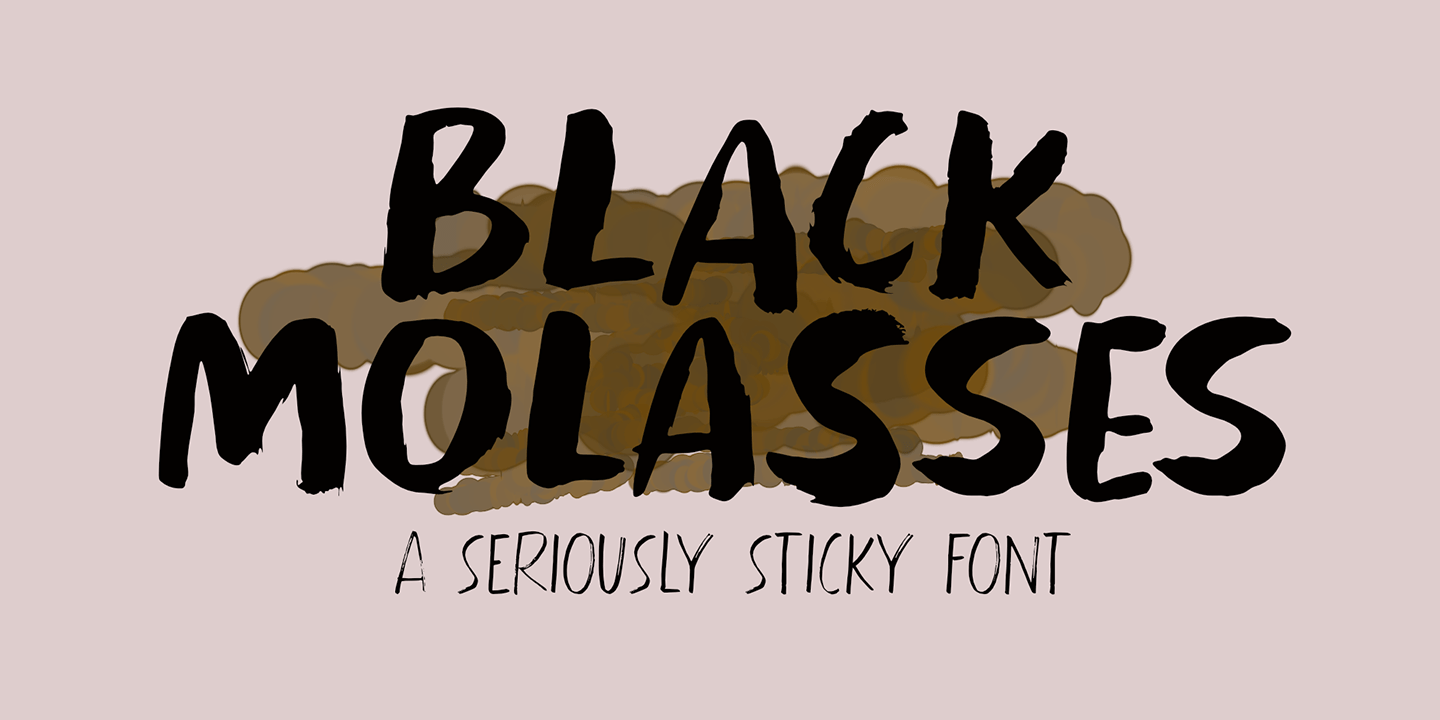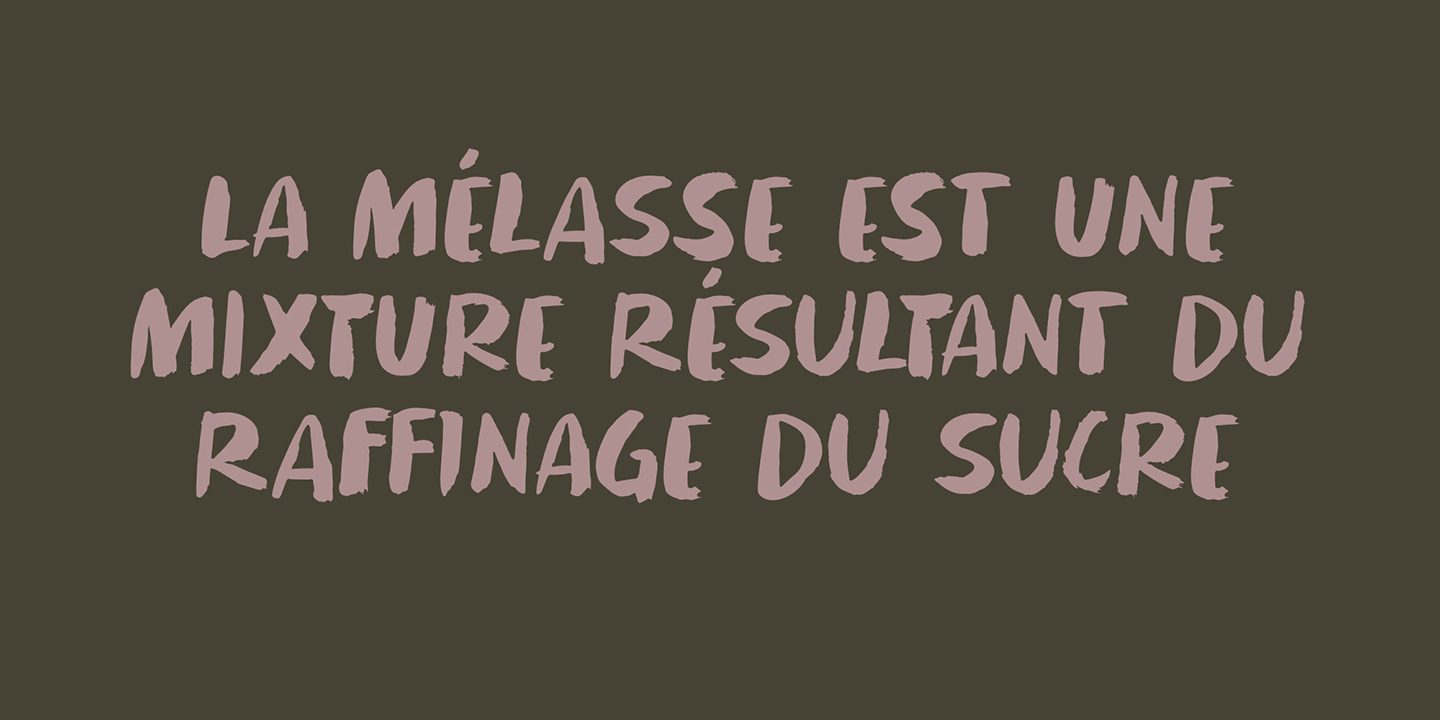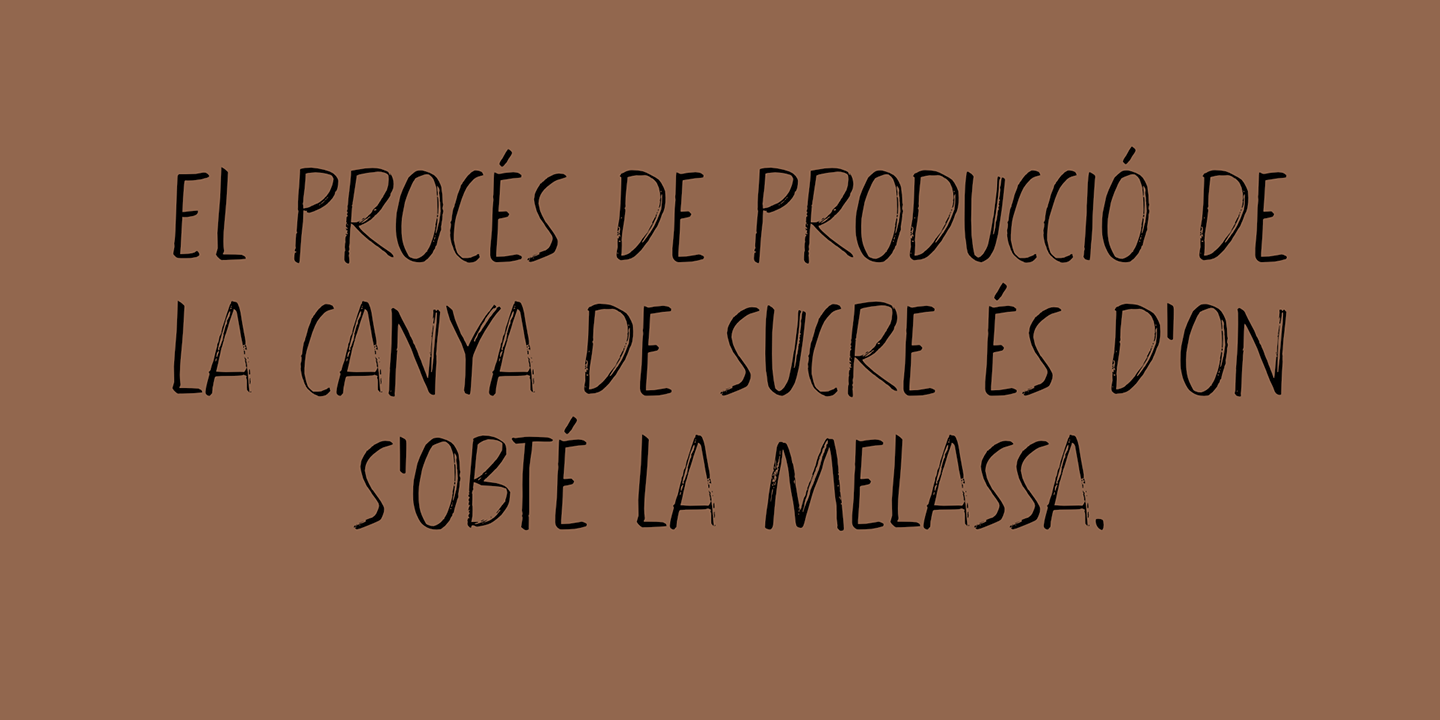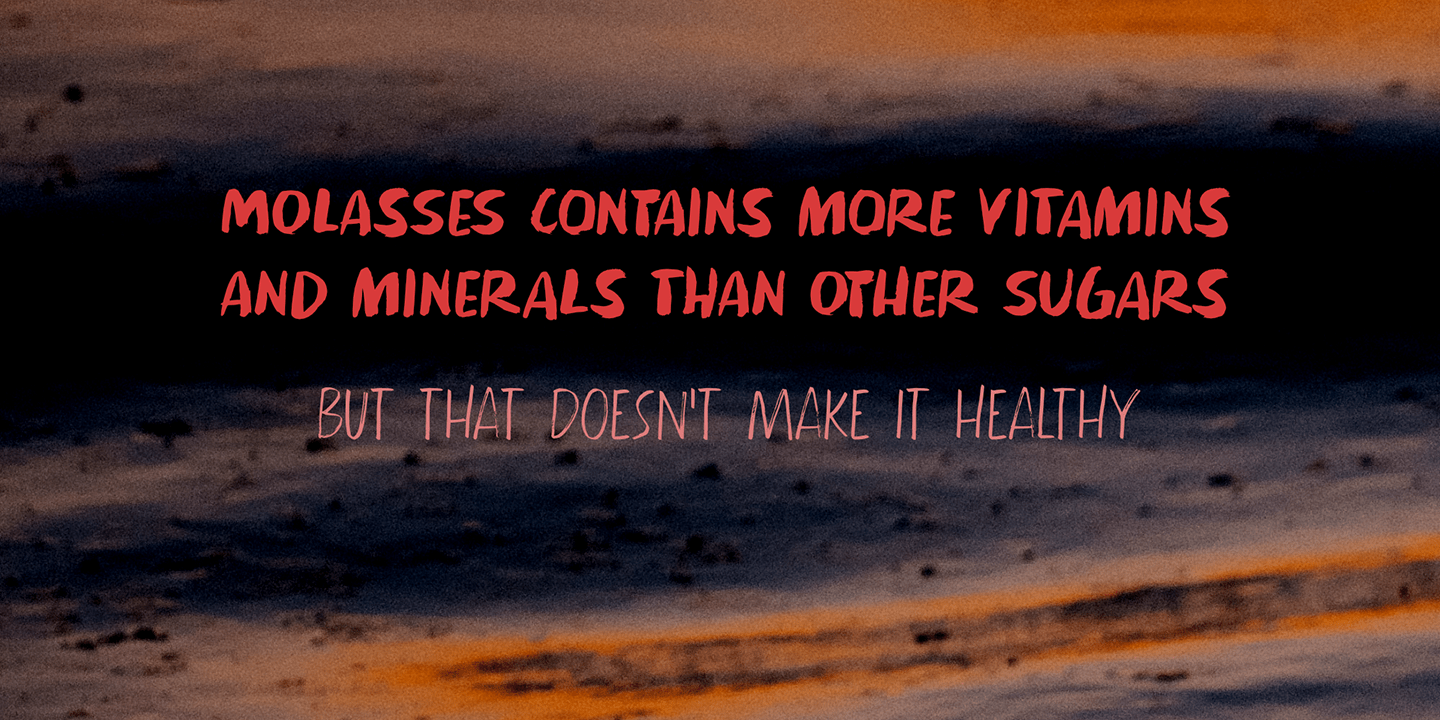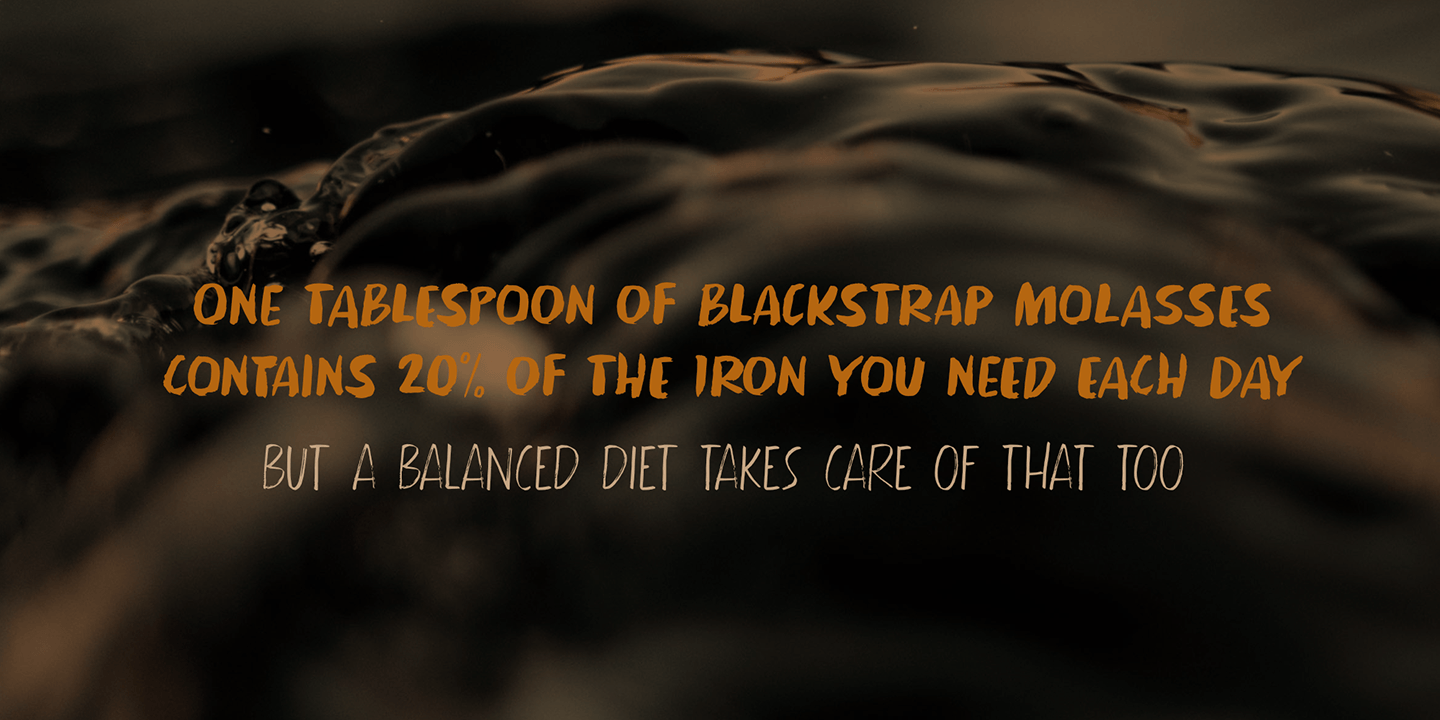
Black Molasses
Font Family by Hanoded
Black Molasses was made using various cheap brushes and Chinese Ink. It comes in a ?fat? version and a ?light? version that work together really well.